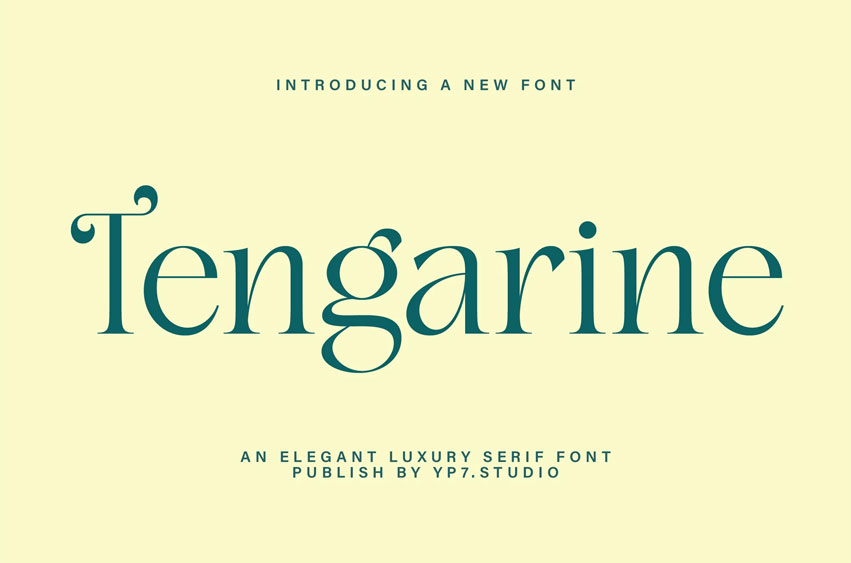
Tengarine Font
Tengarine Font Elegant Luxury Serif Font. It fits in headlines, logos, posters, flyers, invitations, name cards, branding materials, print media, editorial layouts, and many more.